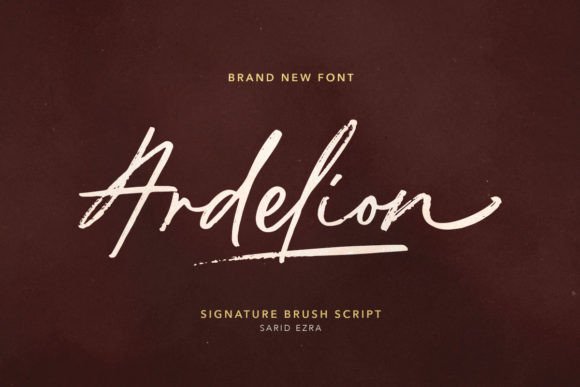
The Ardelion Font: A Signature Script to Elevate Your Designs
Have you ever been in the middle of a design project, and suddenly, you’re stuck on finding the perfect font? I recall a recent experience where I was working on a wedding invitation design, and my client requested a unique, handwritten look that would make their special day even more memorable. After scouring through numerous font options, I stumbled upon the Ardelion font, which turned out to be a game-changer. In this article, I’ll share my experience with Ardelion, its features, and how to make the most of this beautiful signature script font.
What is Ardelion Font?
Ardelion is a signature script font that boasts a textured brush look, complete with stylistic alternates, underlines, and ligatures. This font is perfect for creating your own signature or logo design, making it an excellent choice for branding, fashion designs, wedding invitations, or even handwritten quotes.
• Unique, textured brush look that adds a personal touch to any design ✅
• Includes stylistic alternates, underlines, and ligatures for added versatility 🌈
• Perfect for creating custom signatures or logos 📝
• Easily pairs with other fonts for a beautiful, cohesive look 👫
• Some characters may not work well in all sizes or resolutions ⚠️
• Limited use in very formal or traditional design contexts 👑
The Story Behind Ardelion
Ardelion was designed with the intention of creating a unique, signature script font that captures the essence of handwritten text. The designer aimed to create a font that would be versatile, elegant, and suitable for a wide range of design applications. Although the real story behind Ardelion’s creation remains a mystery, it’s clear that this font has been crafted with love and attention to detail.
Q: What is the best use for Ardelion font?
A: Ardelion font is perfect for creating custom signatures, logos, branding designs, fashion designs, wedding invitations, or handwritten quotes.
Q: Does Ardelion support OpenType features?
A: Yes, Ardelion supports OpenType features, including stylistic alternates, underlines, and ligatures.
Q: Is Ardelion suitable for body text?
A: While Ardelion can be used for body text, it’s primarily designed for display purposes, such as headings or titles.